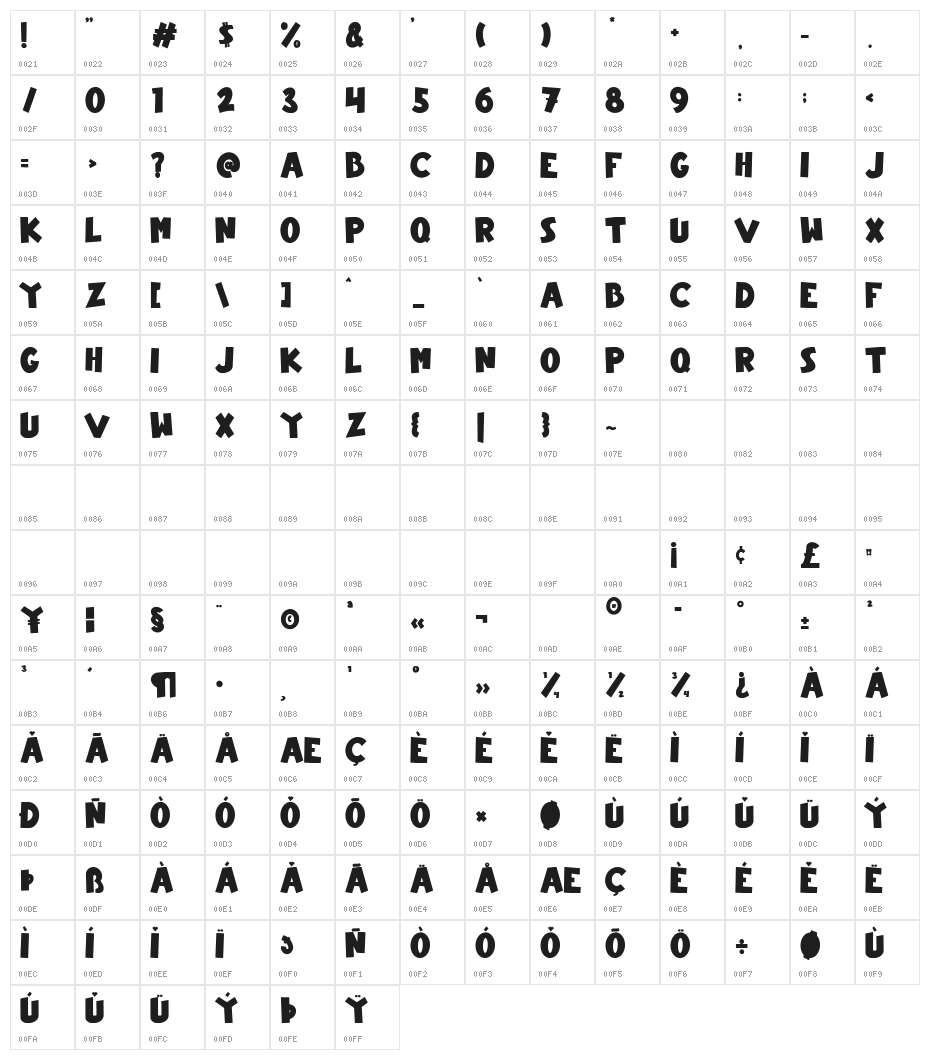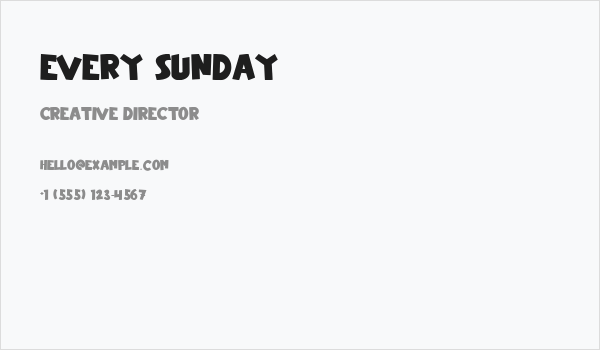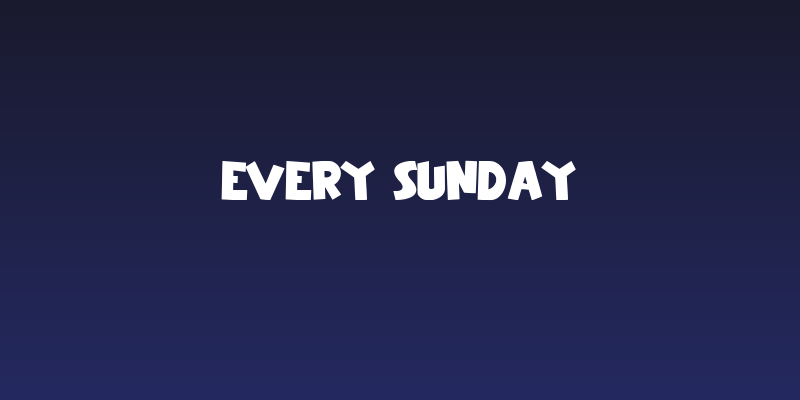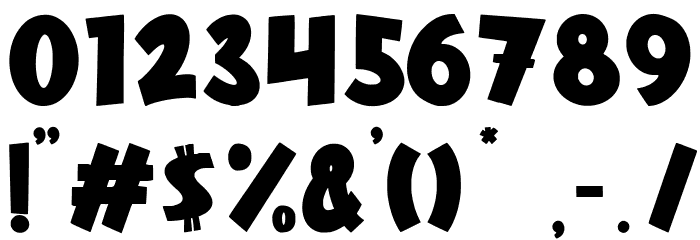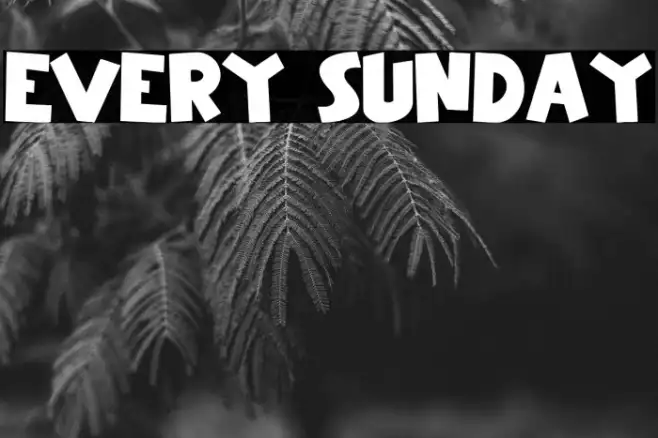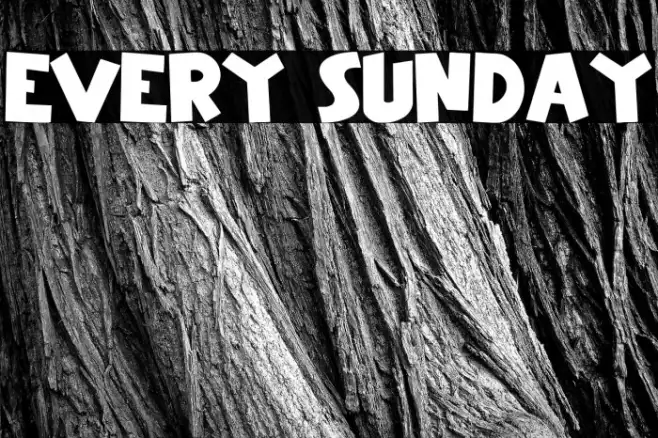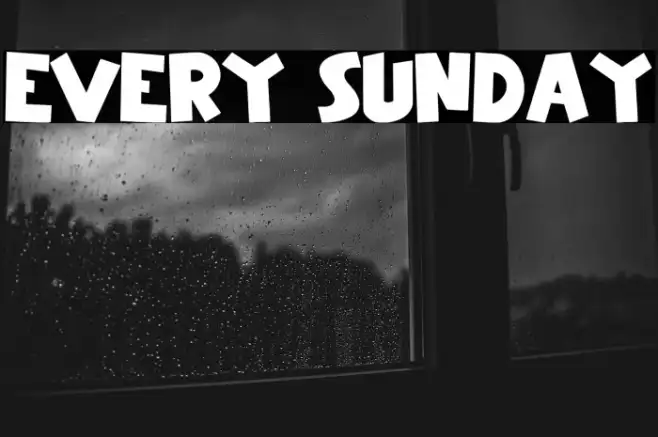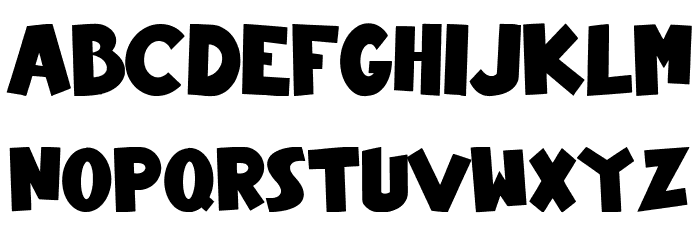
Every Sunday Font
Every Sunday Description
This font features bold, playful characters with a slightly irregular and whimsical design. The letters are thick and rounded, giving them a friendly and approachable appearance. The uppercase and lowercase letters maintain a consistent style, with a slight tilt that adds to the dynamic feel. Numbers and special characters follow the same bold and lively design, making the font suitable for attention-grabbing headlines and creative projects. The overall style is informal and fun, perfect for projects that require a touch of humor or lightheartedness.
| Proposed Projects | Ideal for children's books, comic strips, playful branding, and party invitations. |